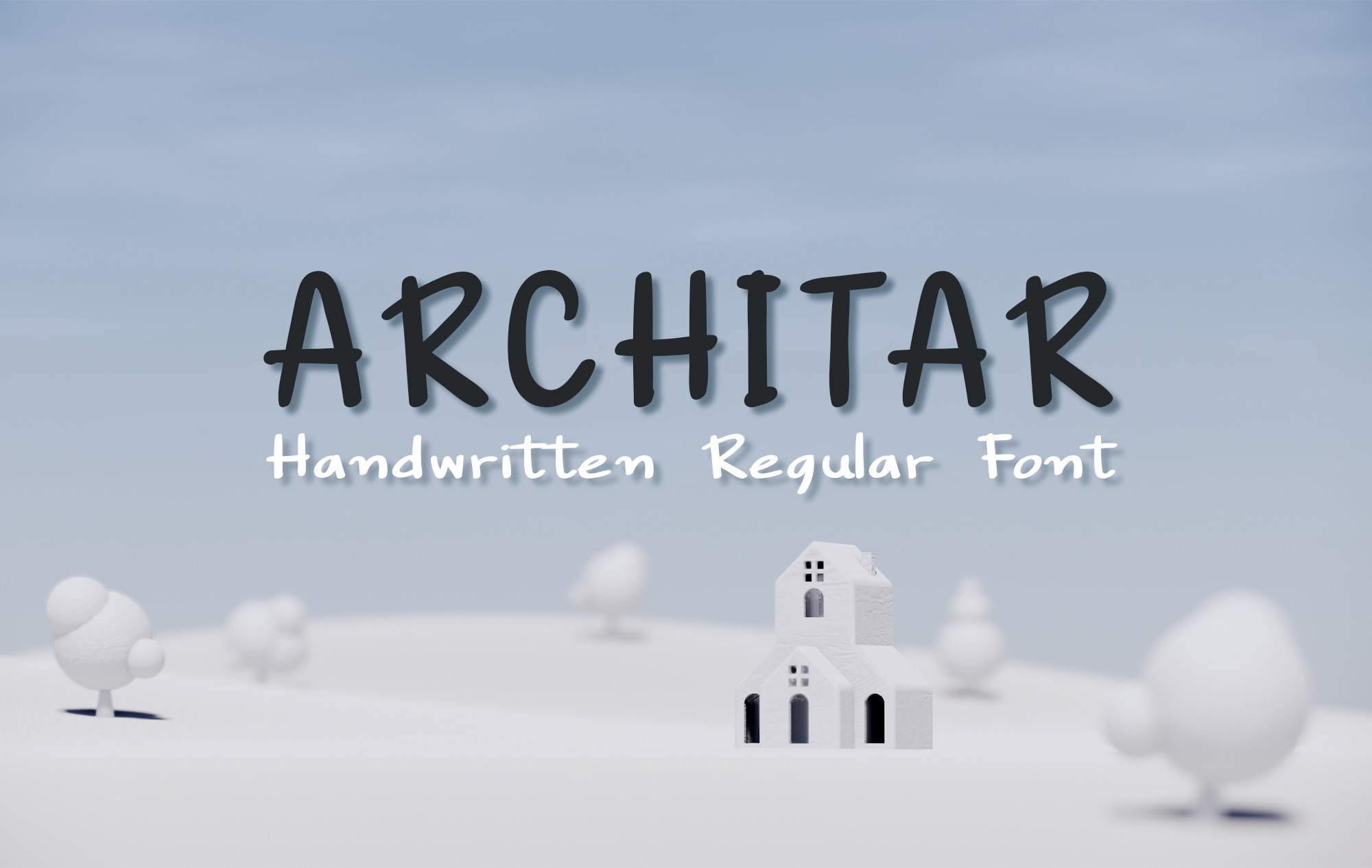
Architar Font
Architar is a handwritten character using thick lines. You can use it to write highlighter topics. Semi-formal character style To look good, playful and more interesting Then you will love it!